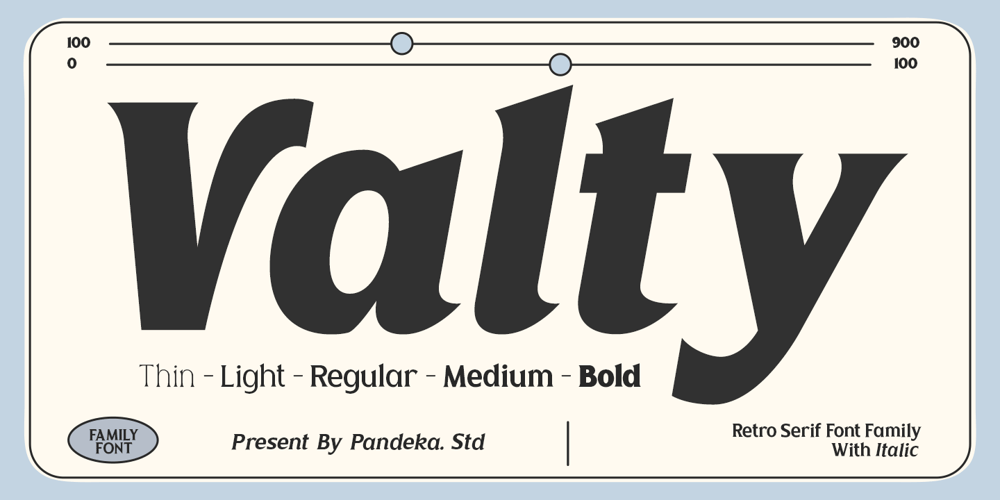
Valty Font Family was designed by Sagara Nararya and published by Pandeka Studio. Valty contains 10 styles and family package options. Introducing Valty – a vibrant modern serif font that captures the essence of the 80s and 90s. Perfect for headlines, posters, logos, and any design needing a touch of vintage charm.Valty offers five style families: Thin, Light, Regular, Medium, and Bold. It also features both Regular and Italic styles, with bold letterforms and playful curves.Valty excels in delivering an authentic, eye-catching typography experience. Elevate your design projects with Valty – the ultimate retro serif font blending vintage allure with modern versatility.What’s you get? Valty Main Files Uppercase & Lowecase Letters 10 Fonts Family with Regular and Italic version Unique Letterforms Works on PC & Mac Numeral & Punctuation Multilingual Support Simple Installations Instructions (Access special characters in all apps, even in Cricut Design) Accessible in the Adobe Illustrator, Adobe Photoshop, Microsoft Word even work on Canva PUA Encoded Characters Fully accessible without additional design software. Feel free to follow, like and share. Thanks so much for checking out my shop!Have a great day!Pandeka Studio